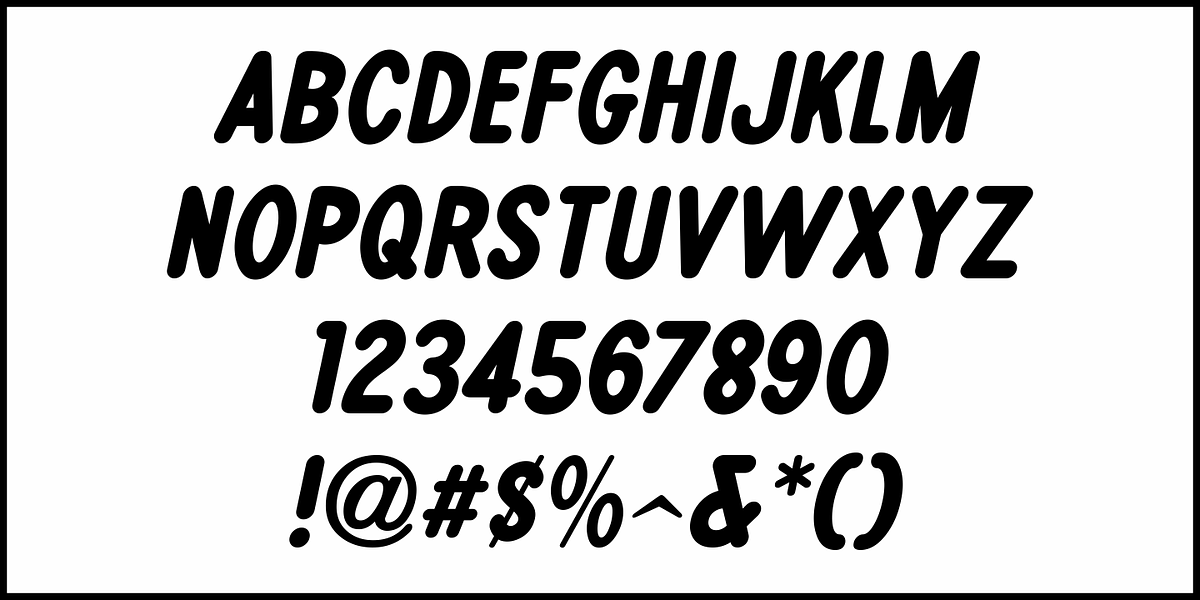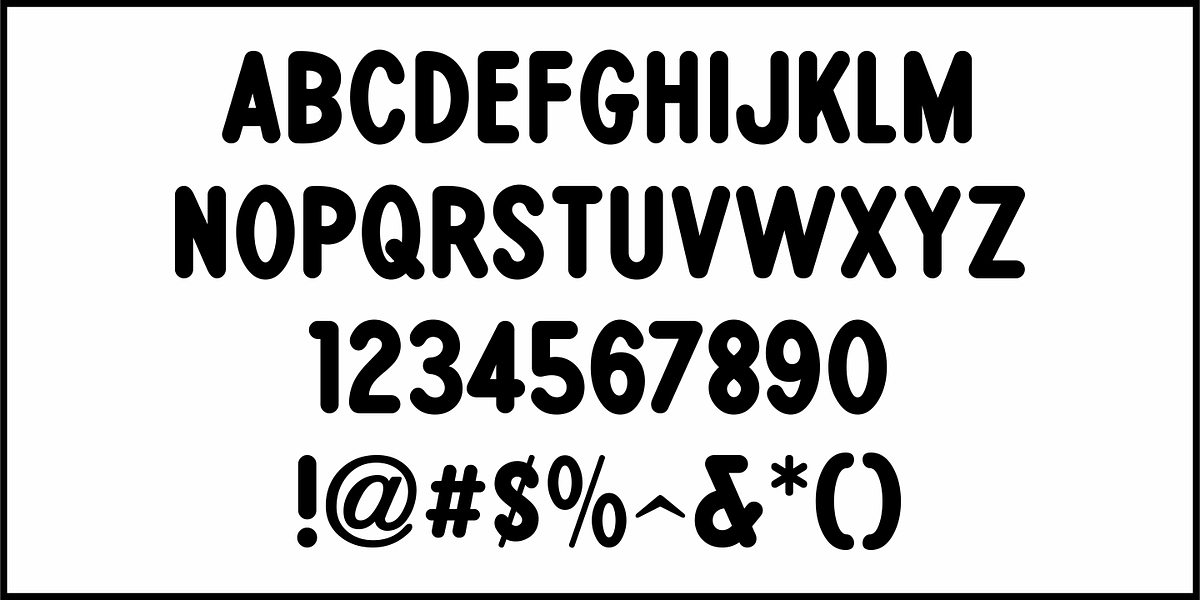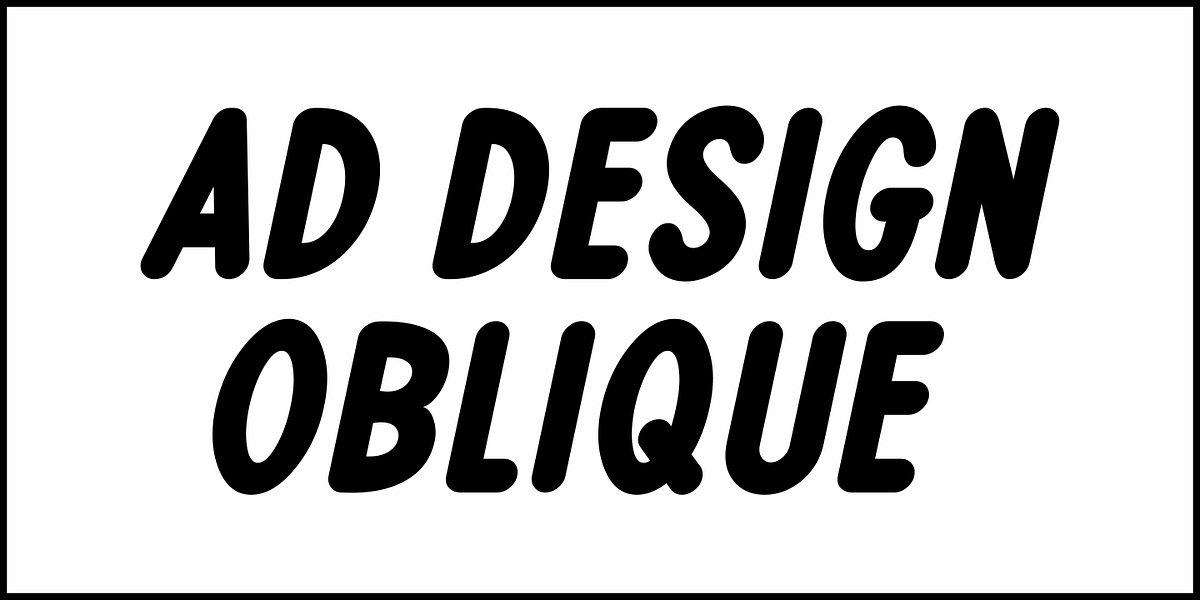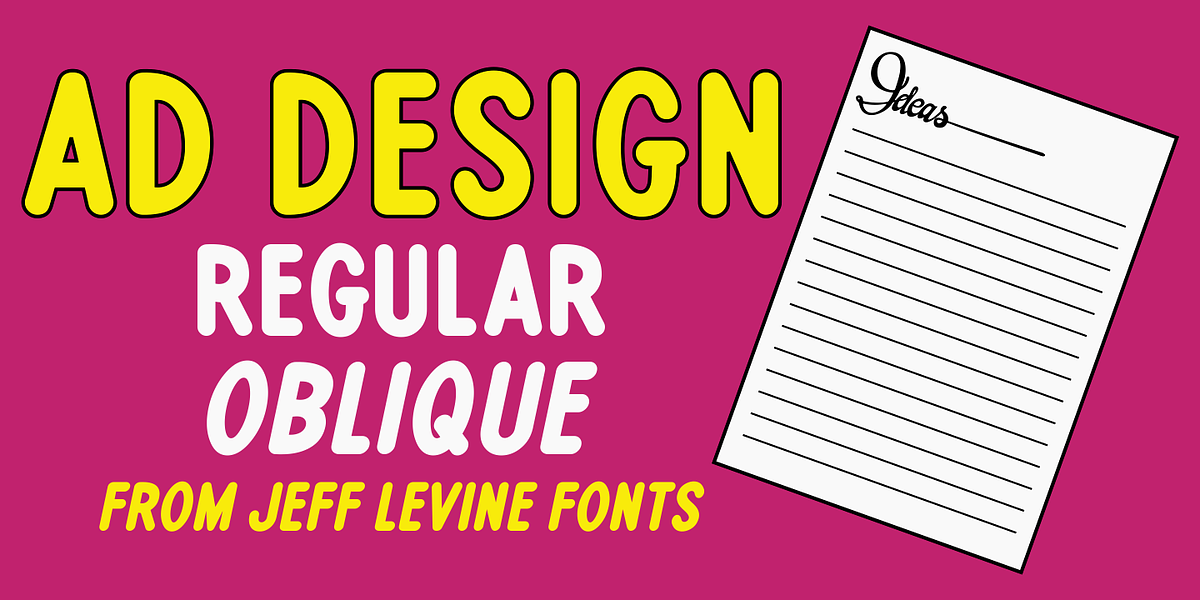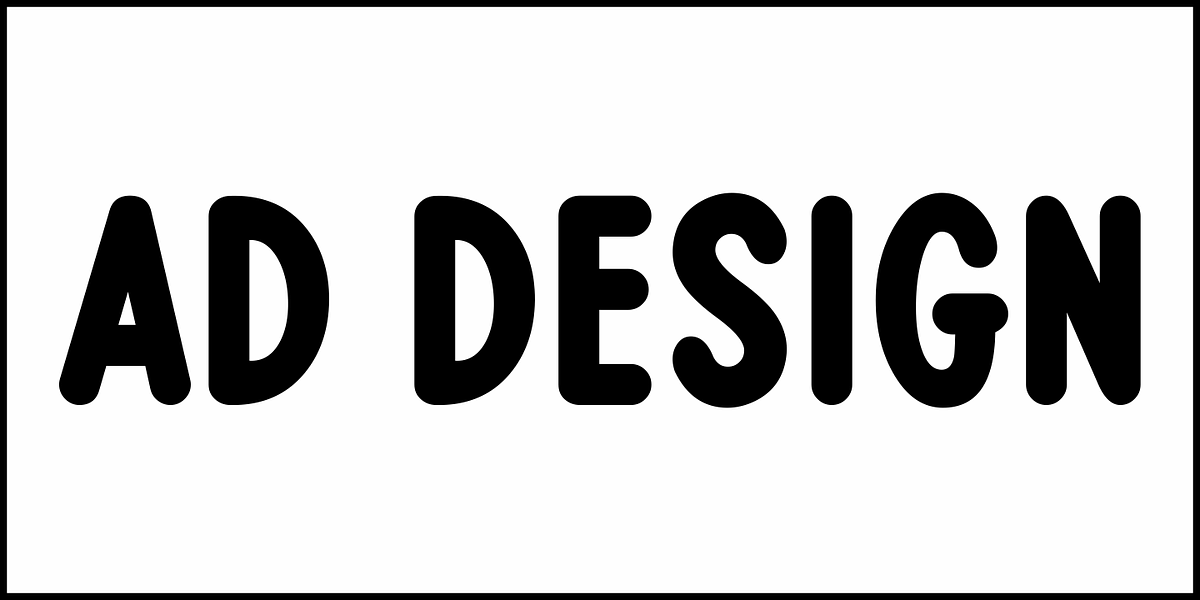
Ad Design JNL
An ad in the Feb. 25, 1938 issue of The Film Daily for "A Slight Case of Murder" had the film's title hand lettered in a condensed sans serif design from a round nib pen.
This plain-but-functional type style adds a classic hand-made look to any project. It is available digitally as Ad Design JNL in both regular and oblique versions.